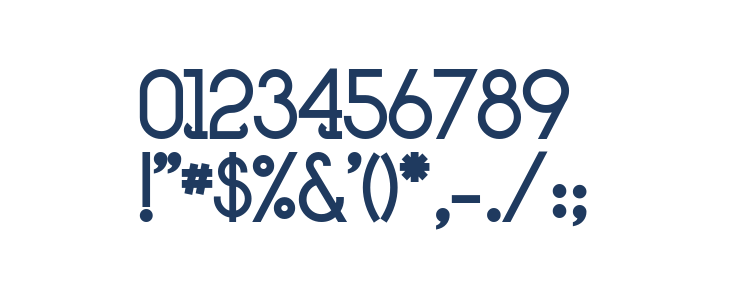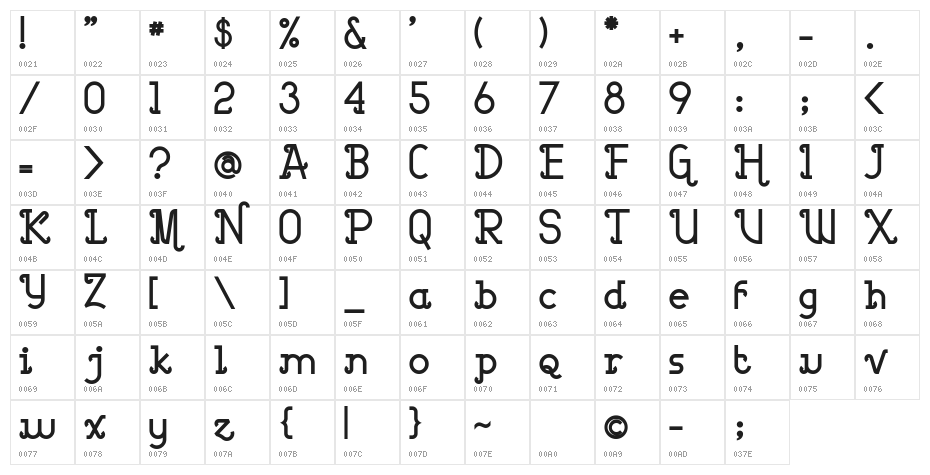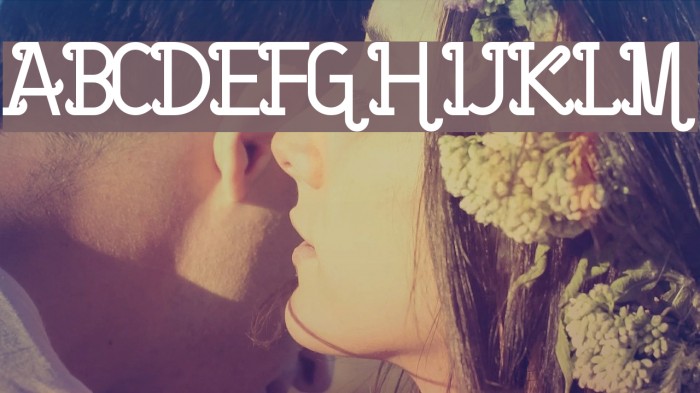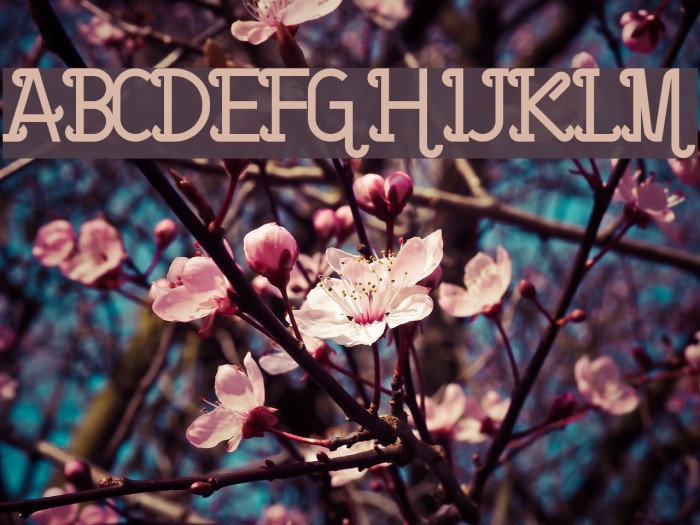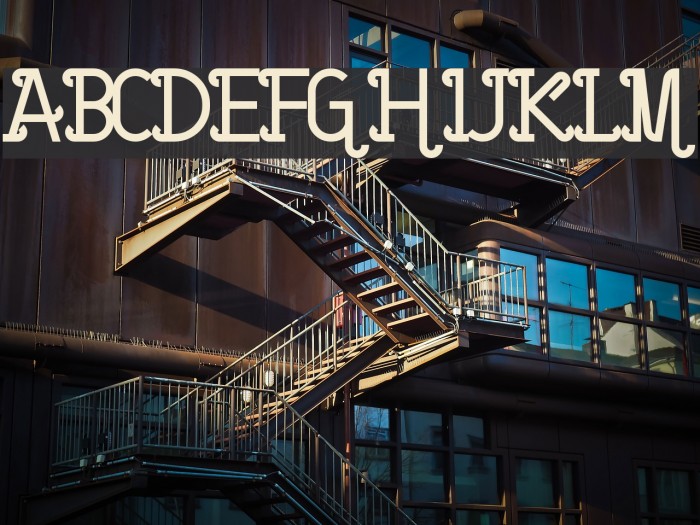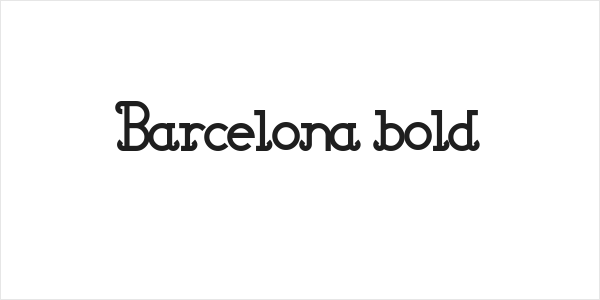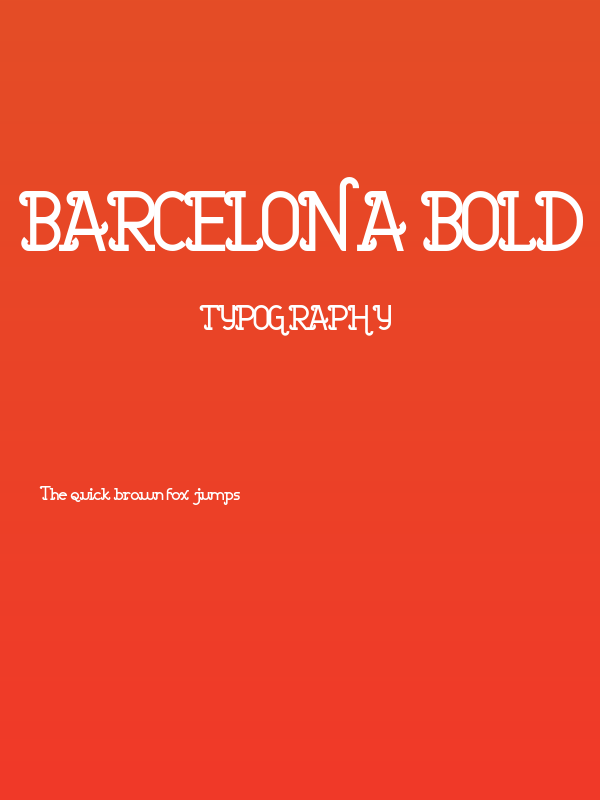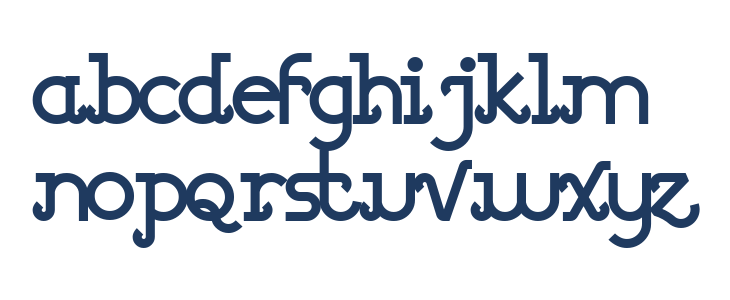
Barcelona bold Font
Barcelona bold Description
This font features a bold and decorative style with unique, playful serifs that give it a distinctive character. The uppercase letters are tall and commanding, while the lowercase letters maintain a consistent flow with rounded edges. The numerals are bold and clear, making them easily readable. Special characters are designed with the same boldness and flair, ensuring consistency across all glyphs. The overall design is modern yet has a touch of vintage charm, making it versatile for various design needs.
| Overall Style | Modern Vintage |
| Proposed Projects | Ideal for branding, poster design, and headlines where a strong, unique presence is needed. |